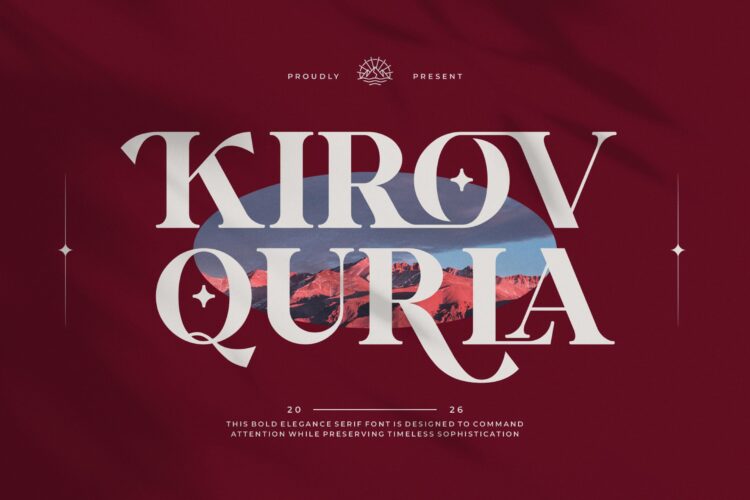
Kirlov Qurla Font
Kirlov Qurla is a modern and elegant serif font made for branding and logo design. Its attractive look works well for invitations, logos, movie titles, business cards, book covers, brand names, and more. The smooth lines and stylish ligatures bring a sophisticated feel to any project.
Kirlov Qurla Serif Font